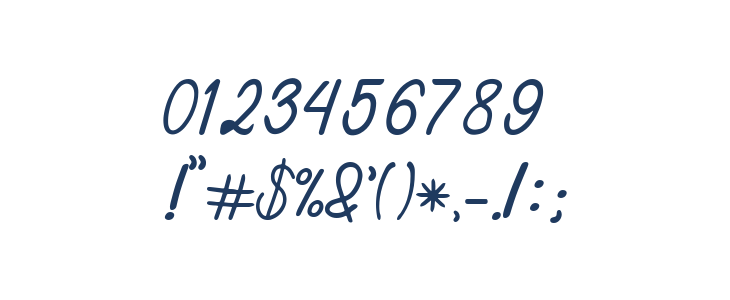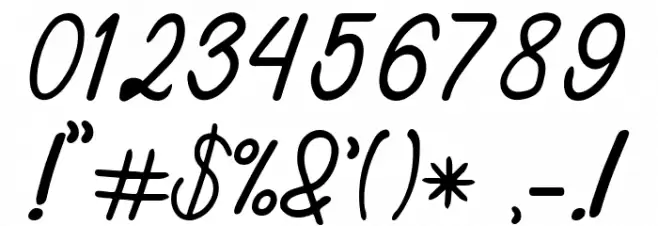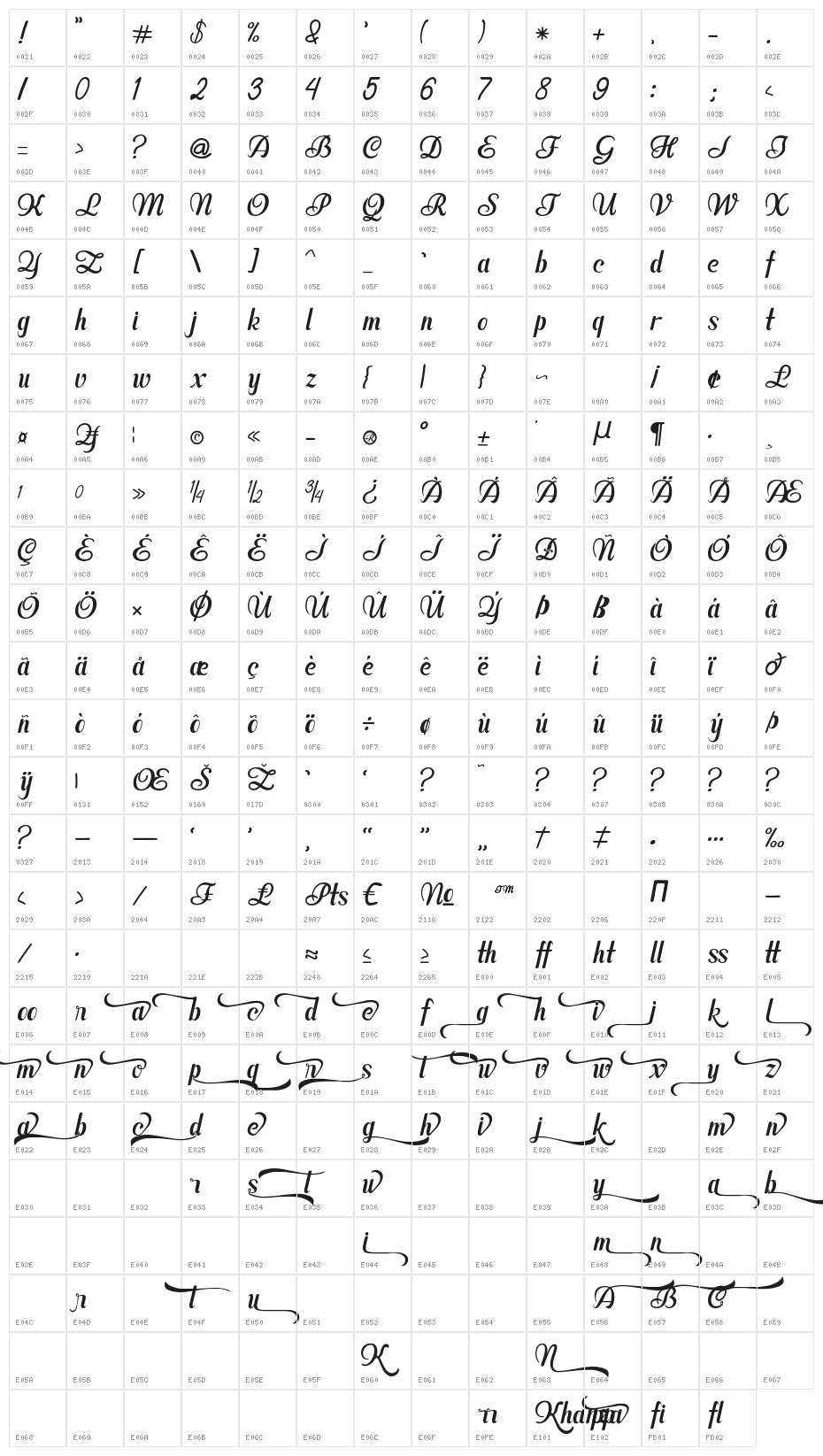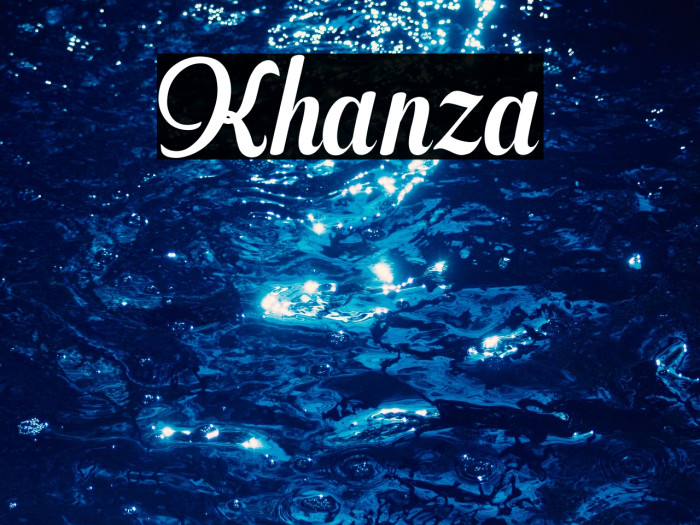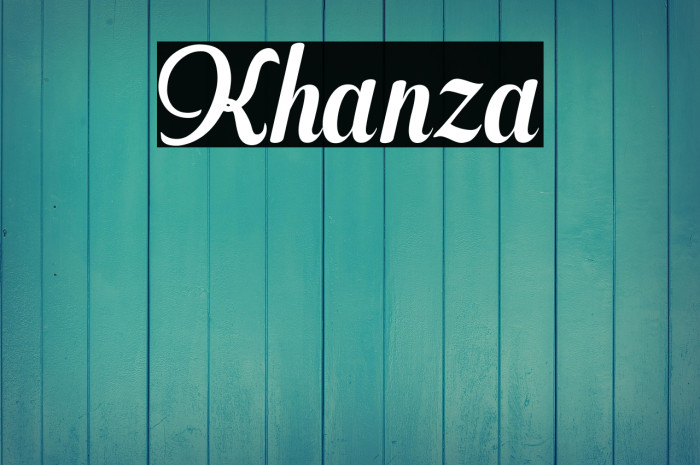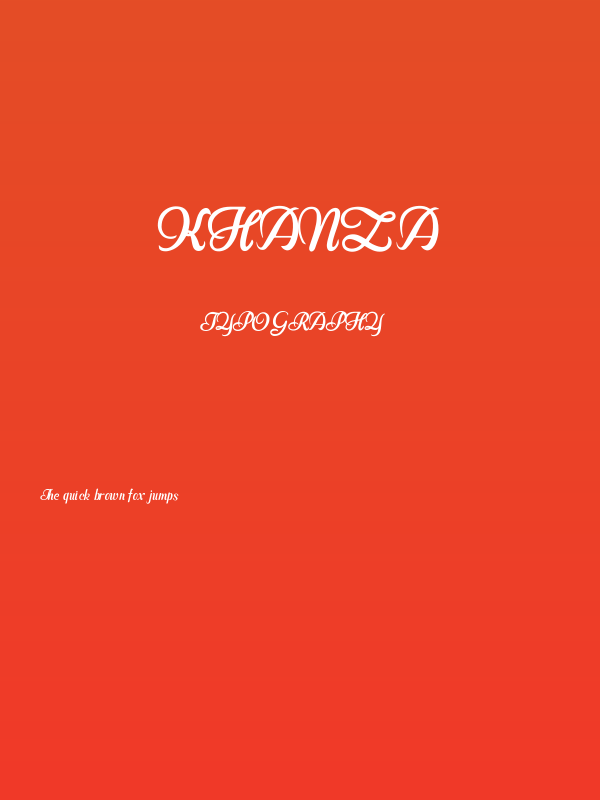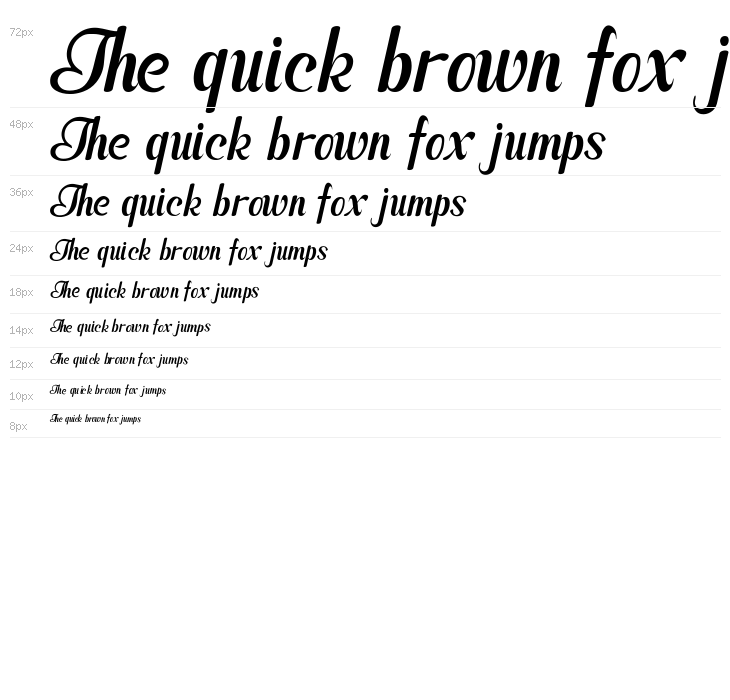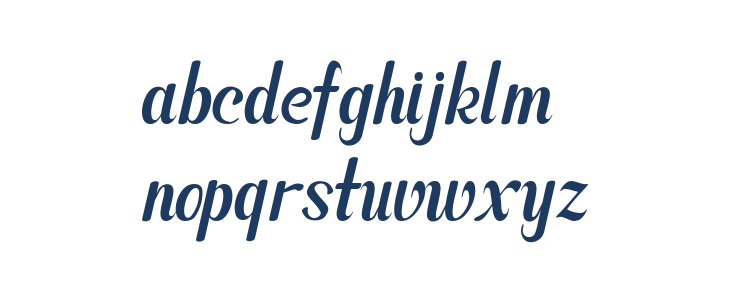
Khanza Font
Khanza Description
This font features a flowing, cursive style with elegant curves and a smooth, connected script. The uppercase letters are ornate and slightly larger than the lowercase, which maintain a consistent flow and readability. The numerals are designed to match the script style, offering a cohesive look across all characters. Special characters are included, maintaining the same elegant and fluid design. The overall appearance is sophisticated and artistic, making it suitable for formal and decorative purposes.
| Proposed Projects | Ideal for wedding invitations, elegant branding, greeting cards, and decorative headings. |